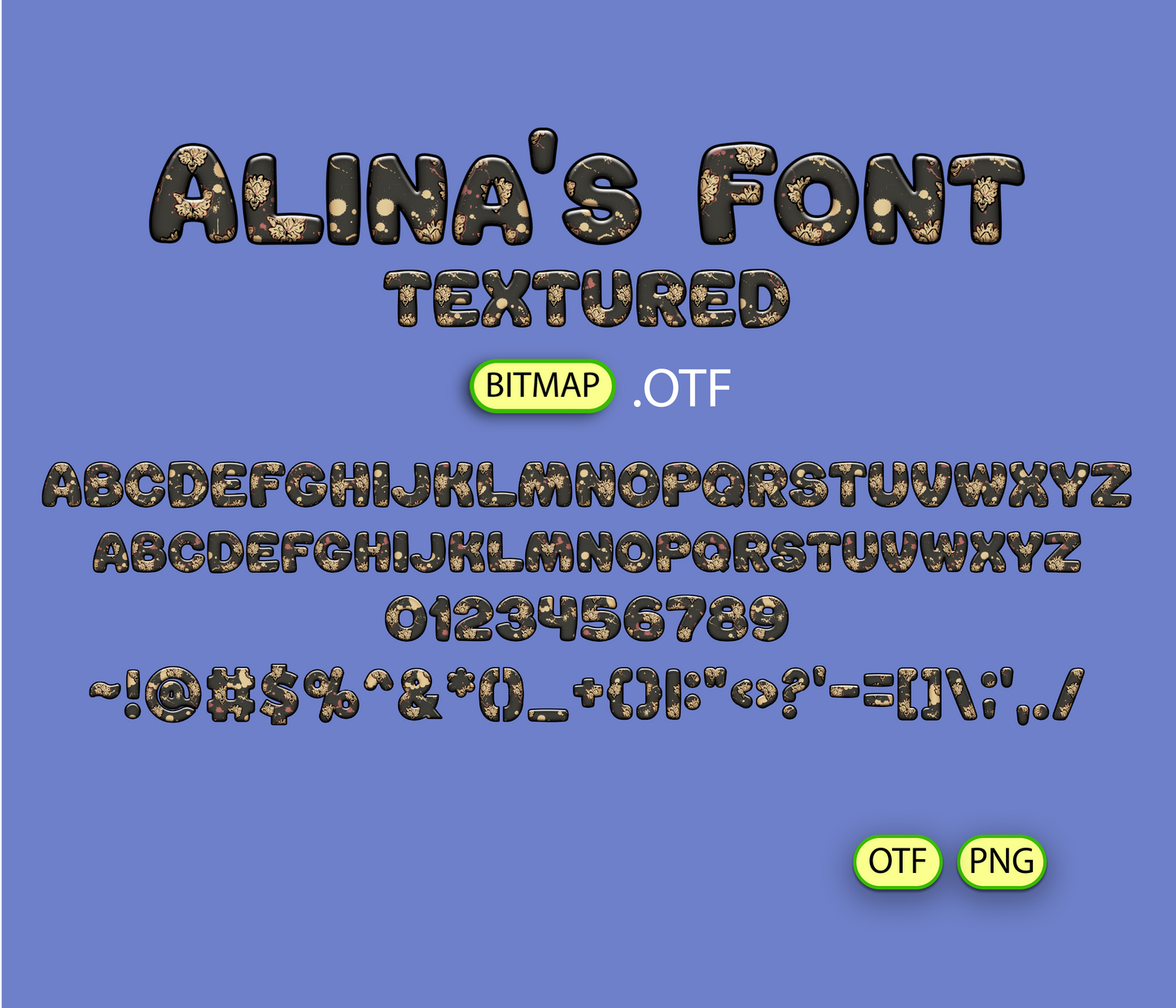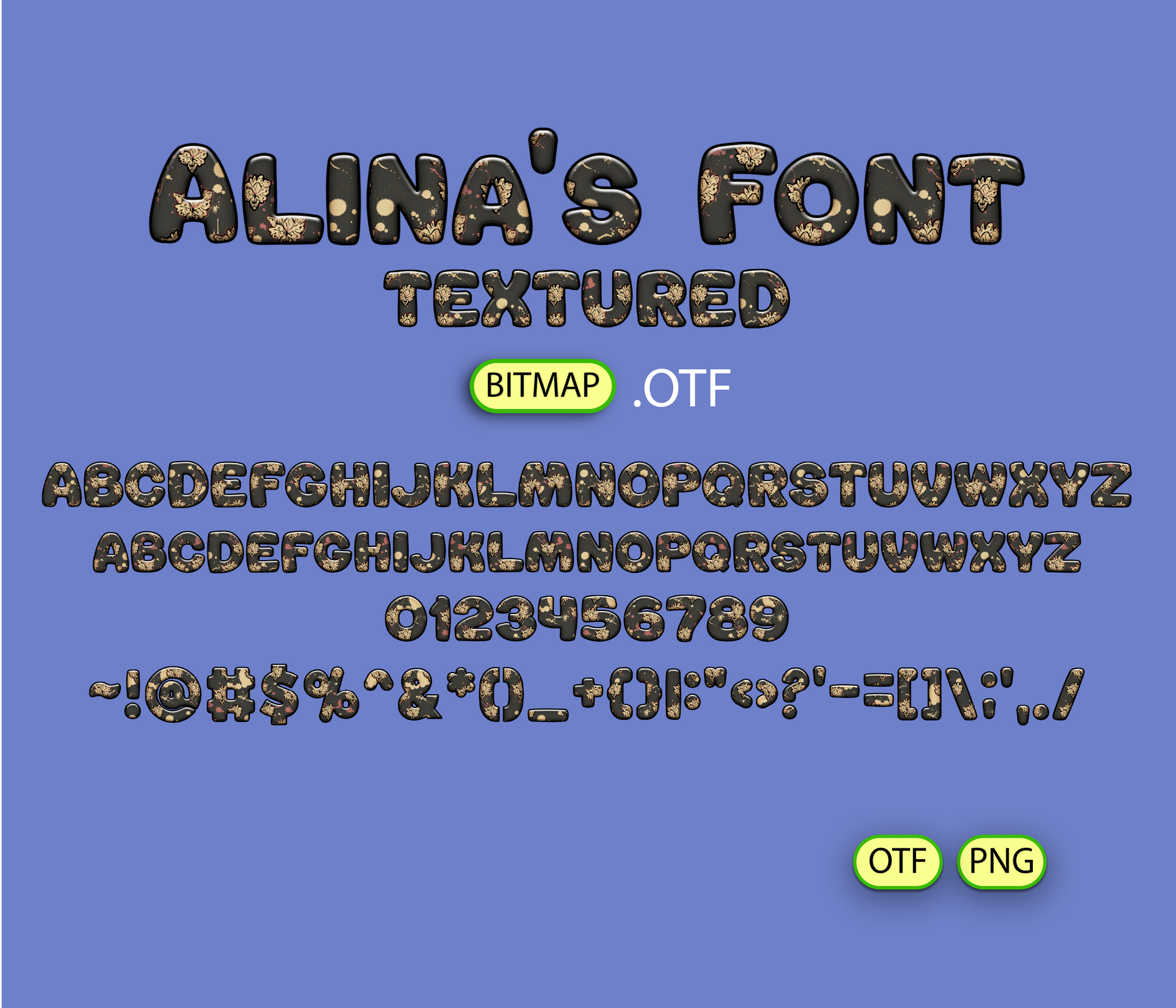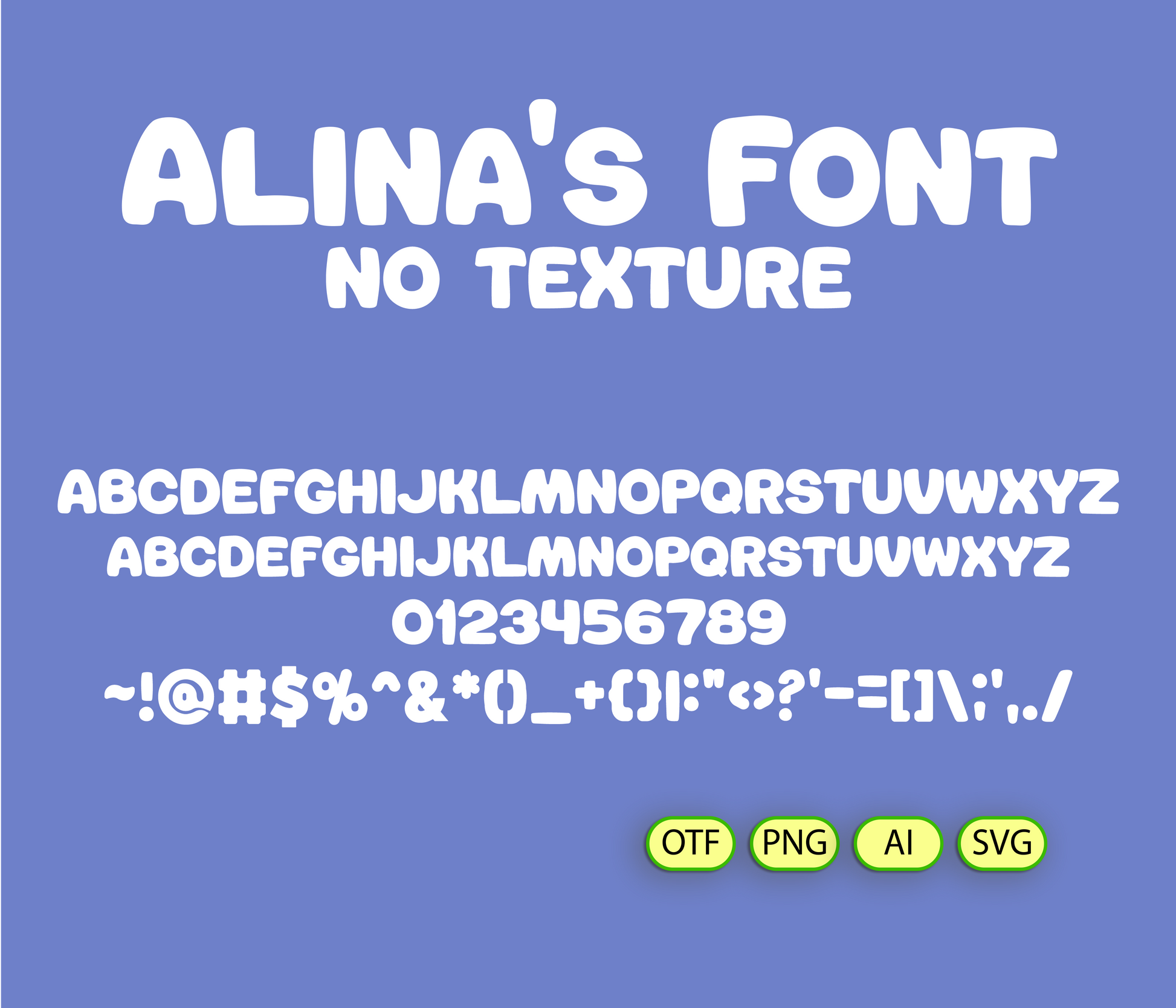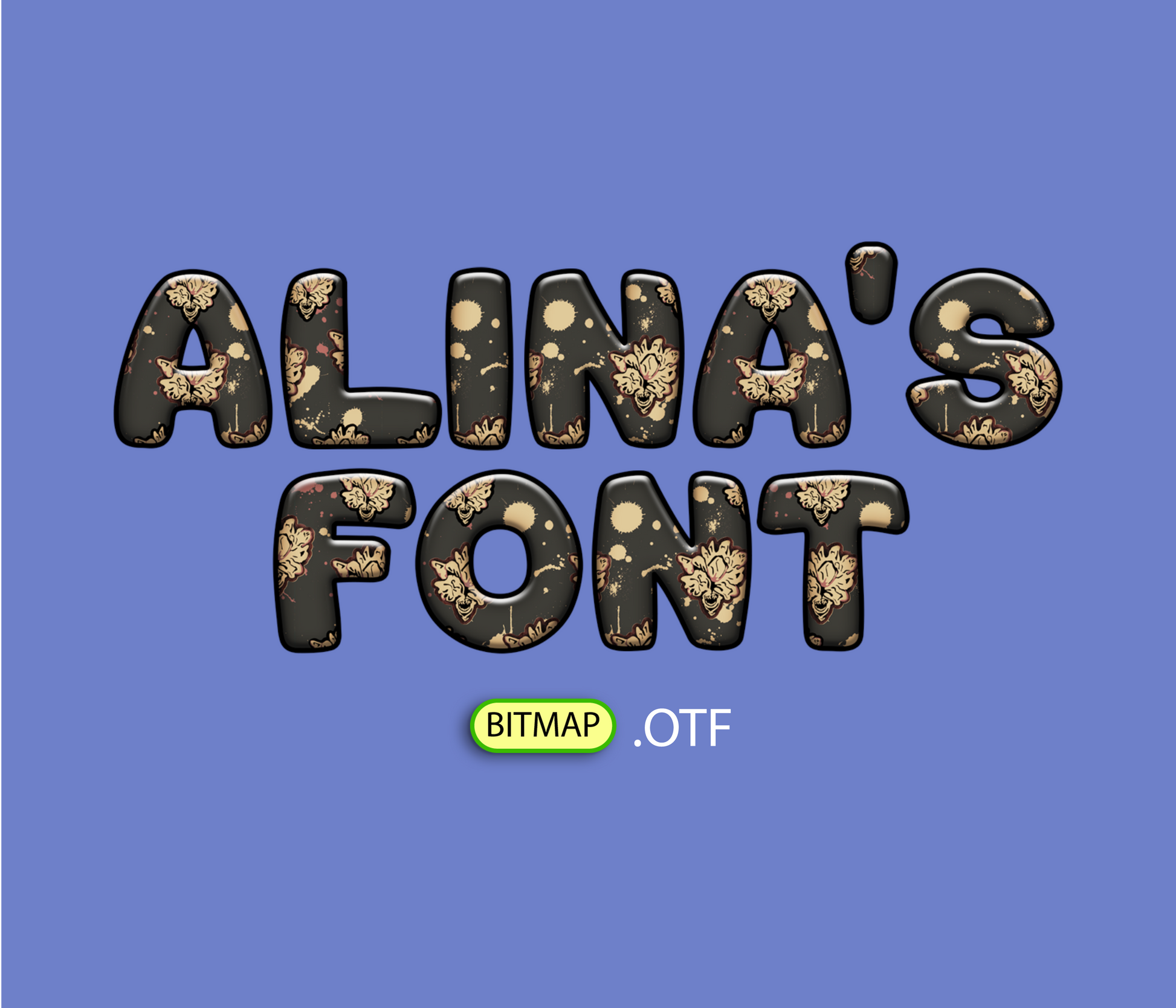
FREE The Last of Us Survival Pattern Font
The Last of Us Survival Typeface Weathered
Step into the haunting world of post-apocalyptic storytelling with our The Last of Us Survival Typeface, capturing the essence of resilience and hope in a broken world. Perfect for gaming studios, horror filmmakers, dystopian novelists, and creative professionals, this font brings the gritty, emotional spirit of survival narratives to your projects. Create compelling signage, atmospheric products, or digital content with the raw, weathered aesthetic of abandoned cities and overgrown landscapes.
Our The Last of Us Survival Typeface features distressed, apocalypse-inspired shapes and rugged characters reflecting the harsh yet human aesthetic of endurance communities.
- Gaming Industry: Create immersive logos, UI elements, and promotional materials for survival games, zombie titles, and post-apocalyptic adventures
- Entertainment Design: Perfect for movie posters, book covers, and streaming content that explores themes of survival, loss, and human connection
- Digital Media: Enhance websites, blogs, and social media with dramatic headers and graphics that express tension and emotional depth
- Creative Content: Add authentic character to graphic novels, concept art, and promotional materials for dystopian fiction projects
- Personal Projects: Bring apocalyptic atmosphere to fan art, cosplay materials, and themed decor inspired by the aesthetics of abandoned civilization